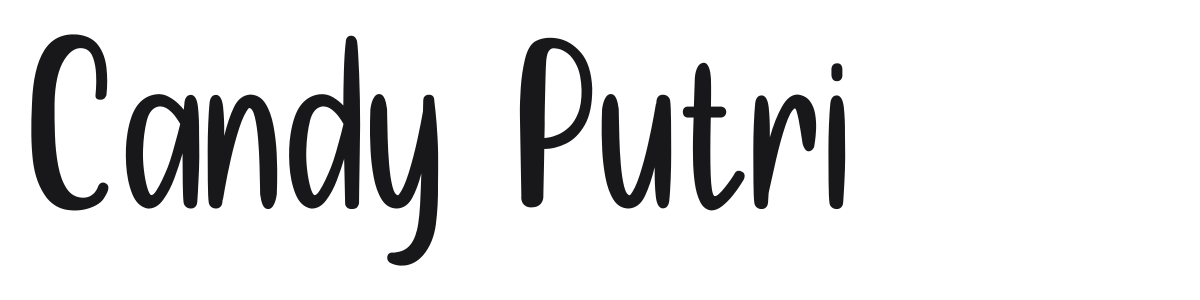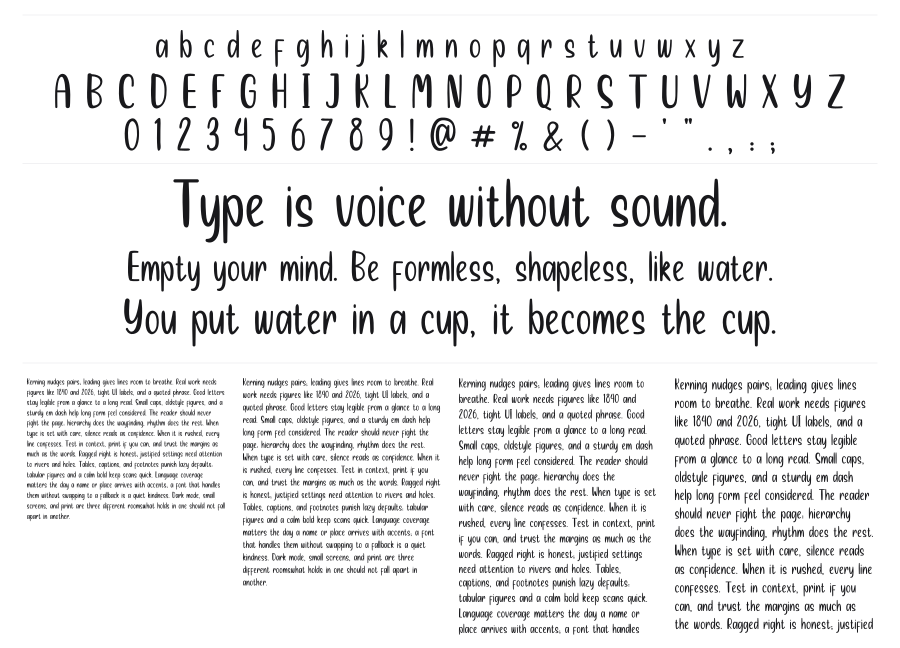
Candy Putri
Candy Putri is a casual handwritten font with rounded strokes and a naturally bouncy rhythm. It captures the look of clean, relaxed pen lettering without feeling stiff or mechanical. The friendly character makes it a go-to for packaging, social media graphics, and any project that needs warmth without formality.